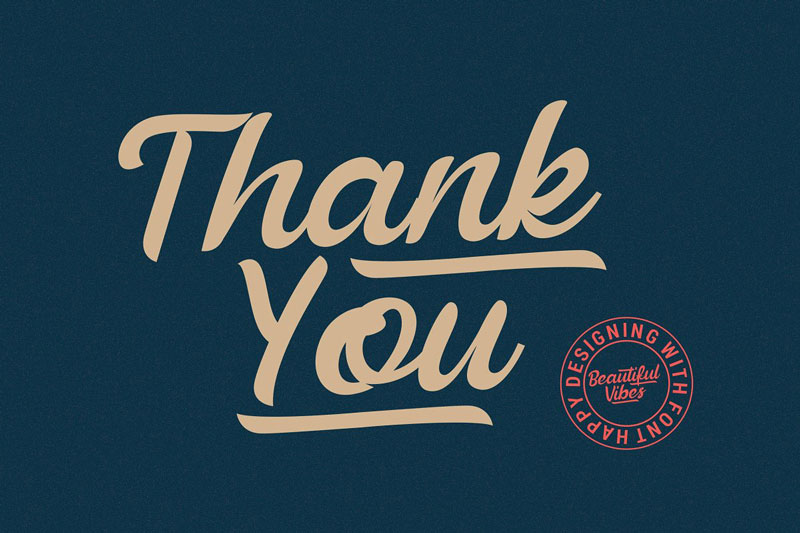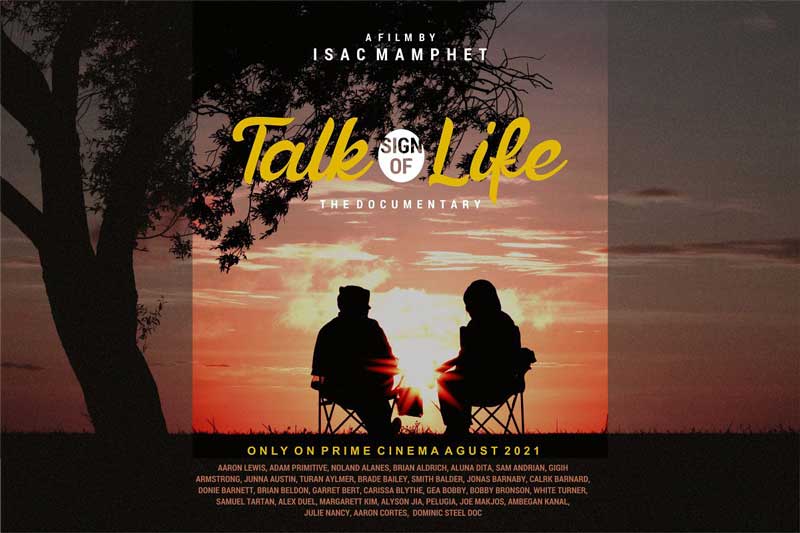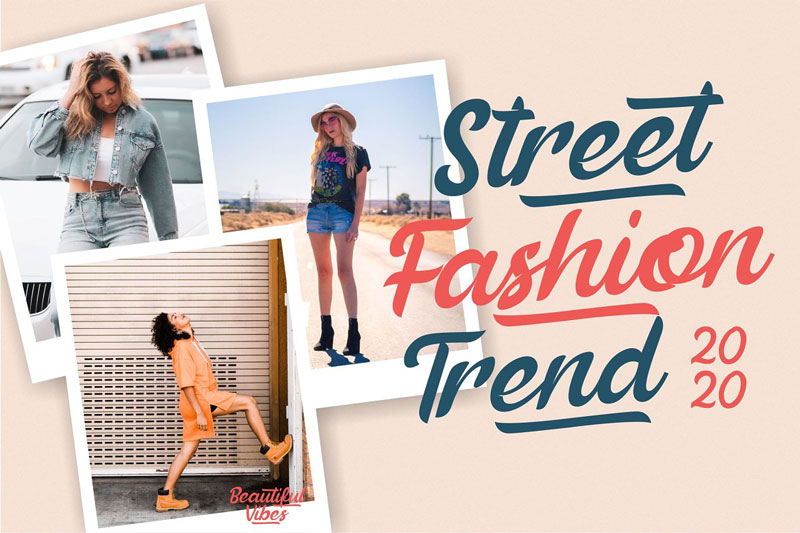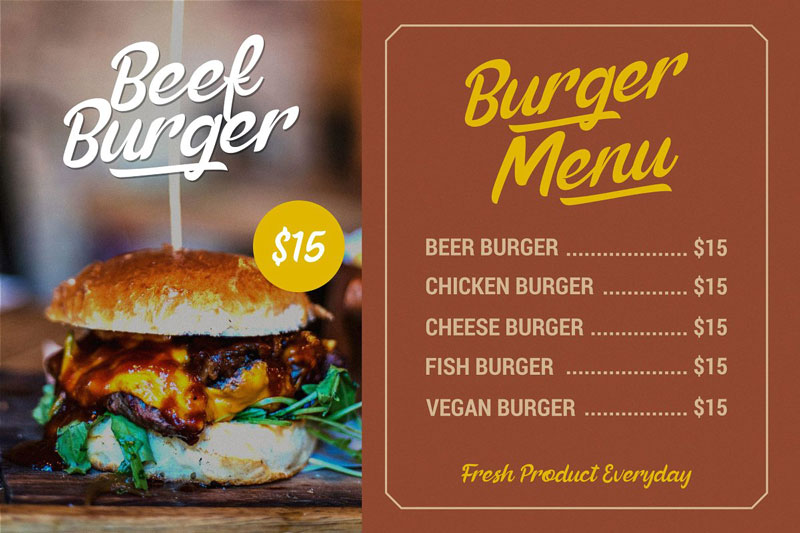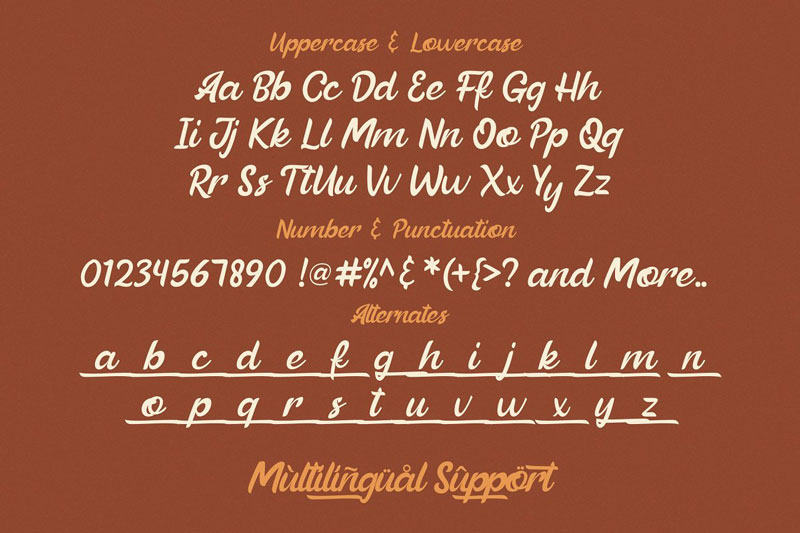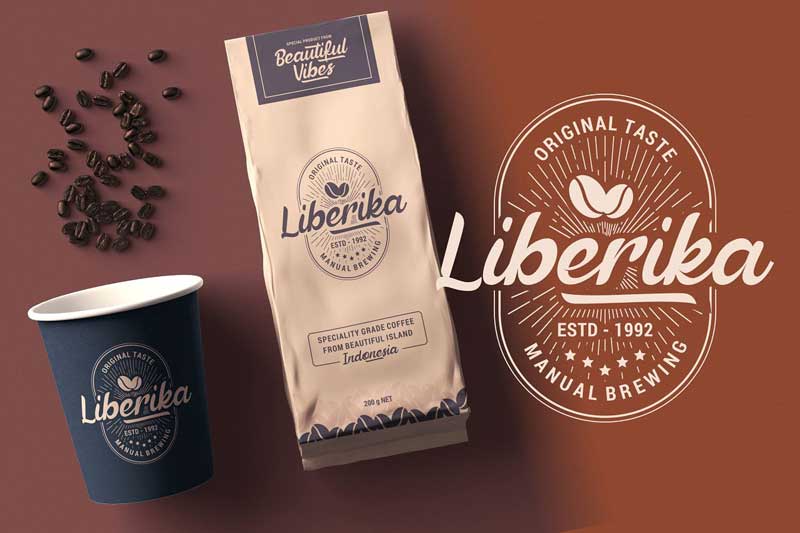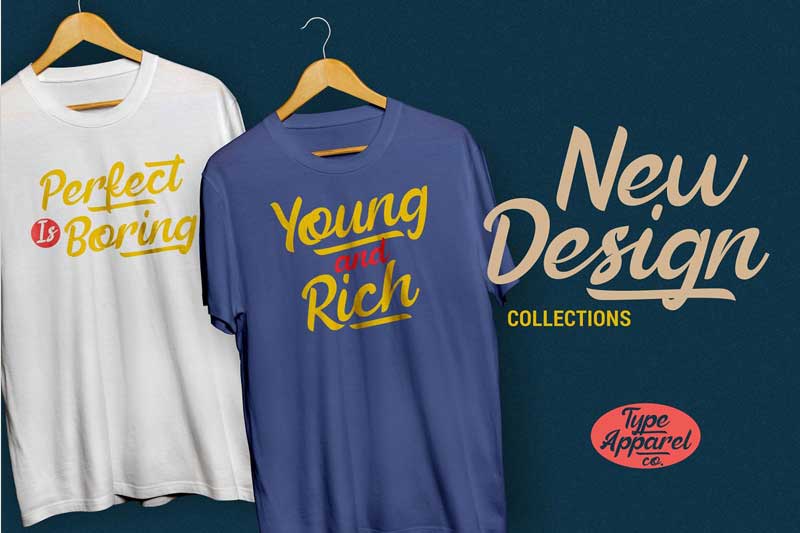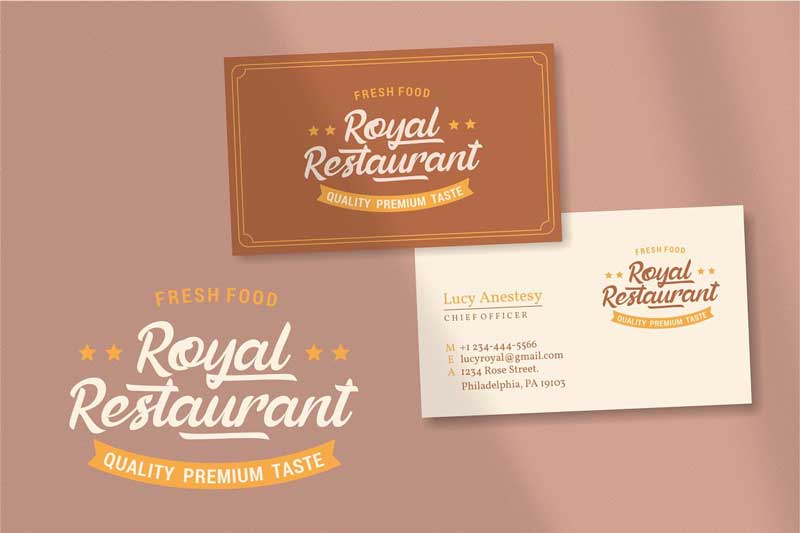
Beautiful Vibes – Bold Script Font
Beautiful Vibes Bold Script Font
Beautiful Vibes - Bold Script Font
Introducing the creative market beautiful vibes bold type script ventage retro font. Beautiful Vibes is a perfect choice for vintage, trendy designs. It gives your design a unique design taste with classic vintage retro style. You can also use this font for barbershop, clothing, brands, coffee shop, motorcycle club and many more
• Alternate Characters
• Uppercase and Lowercase letters
• Numbering and Punctuations
• Multilingual Support